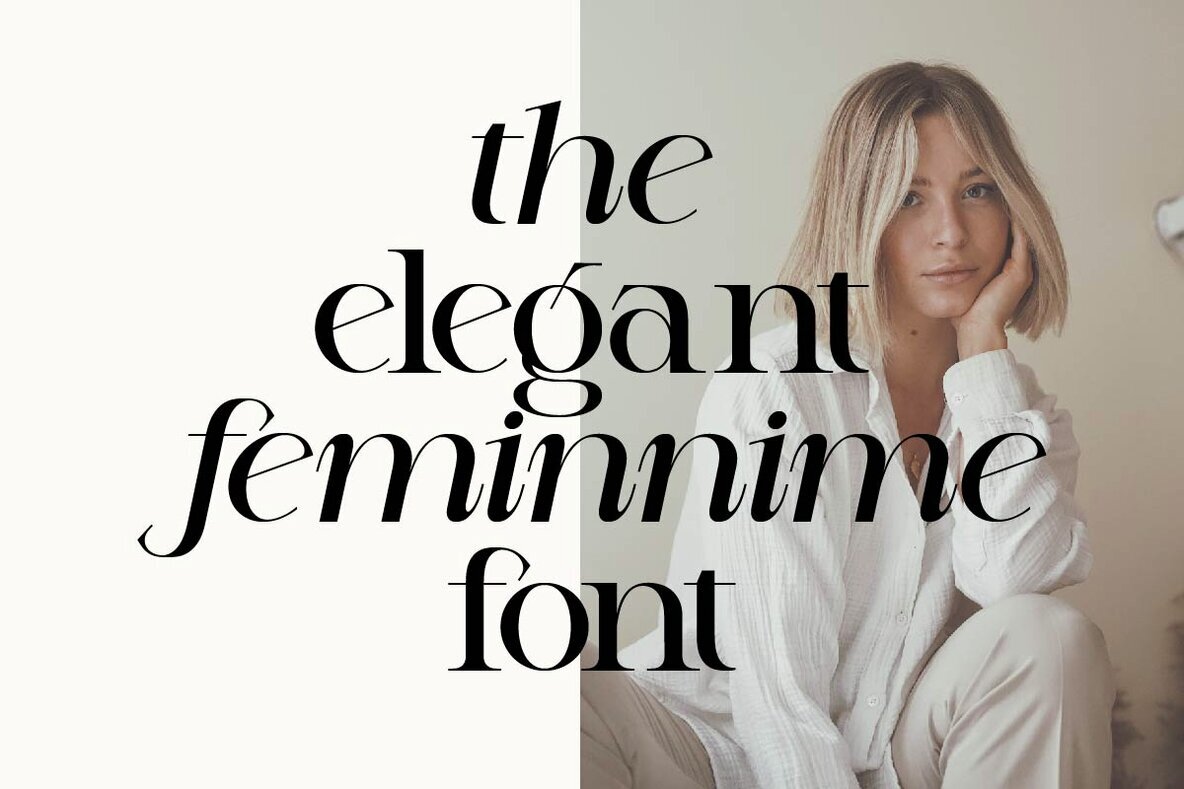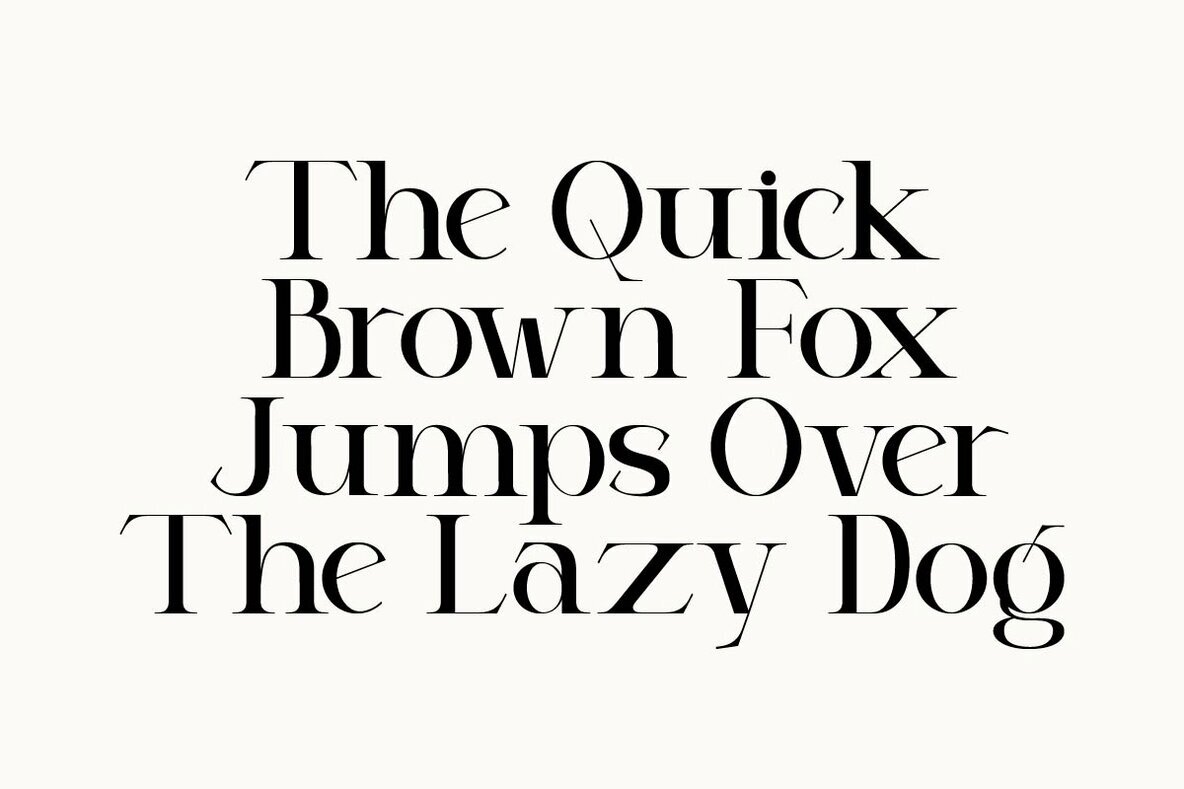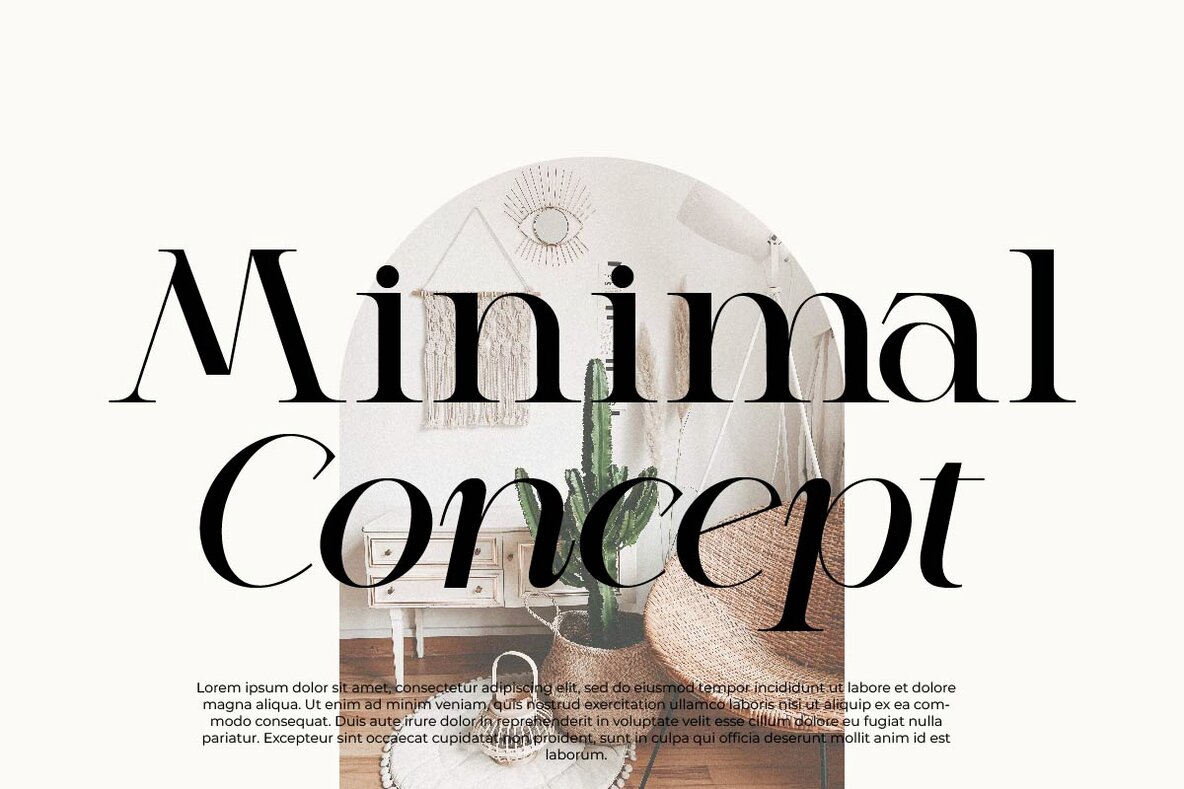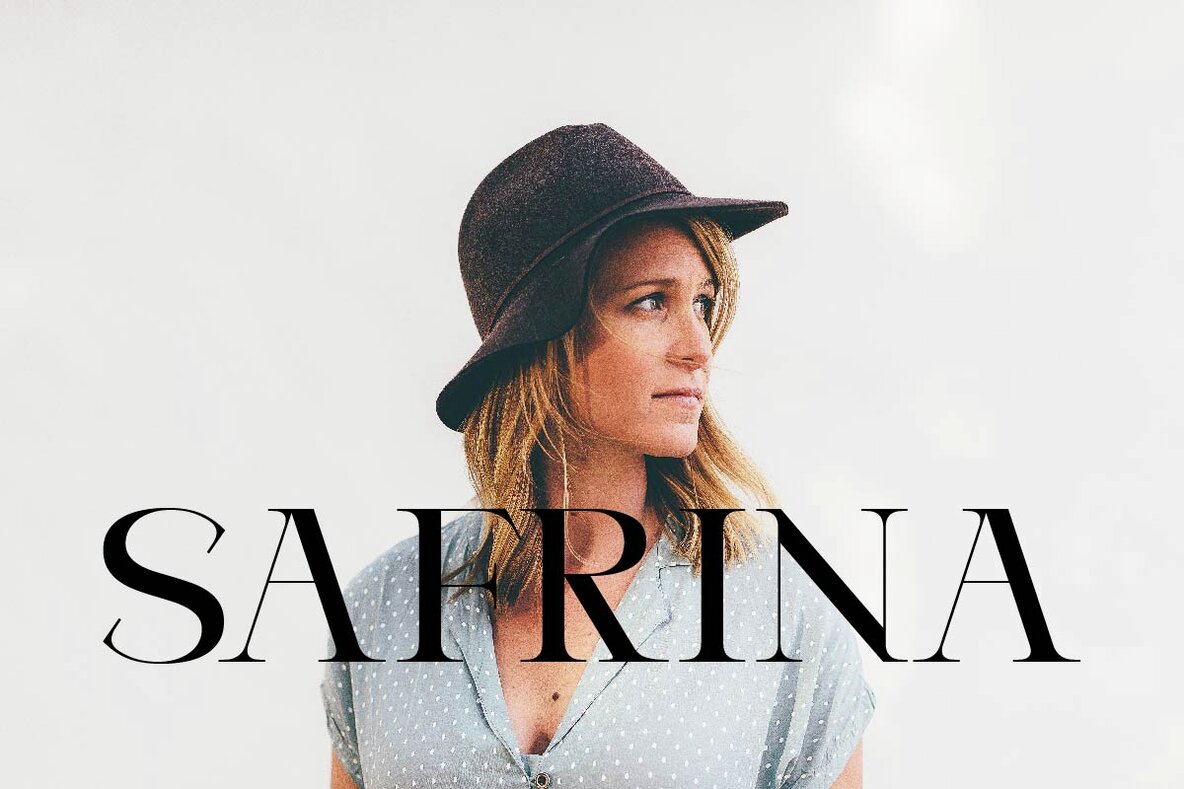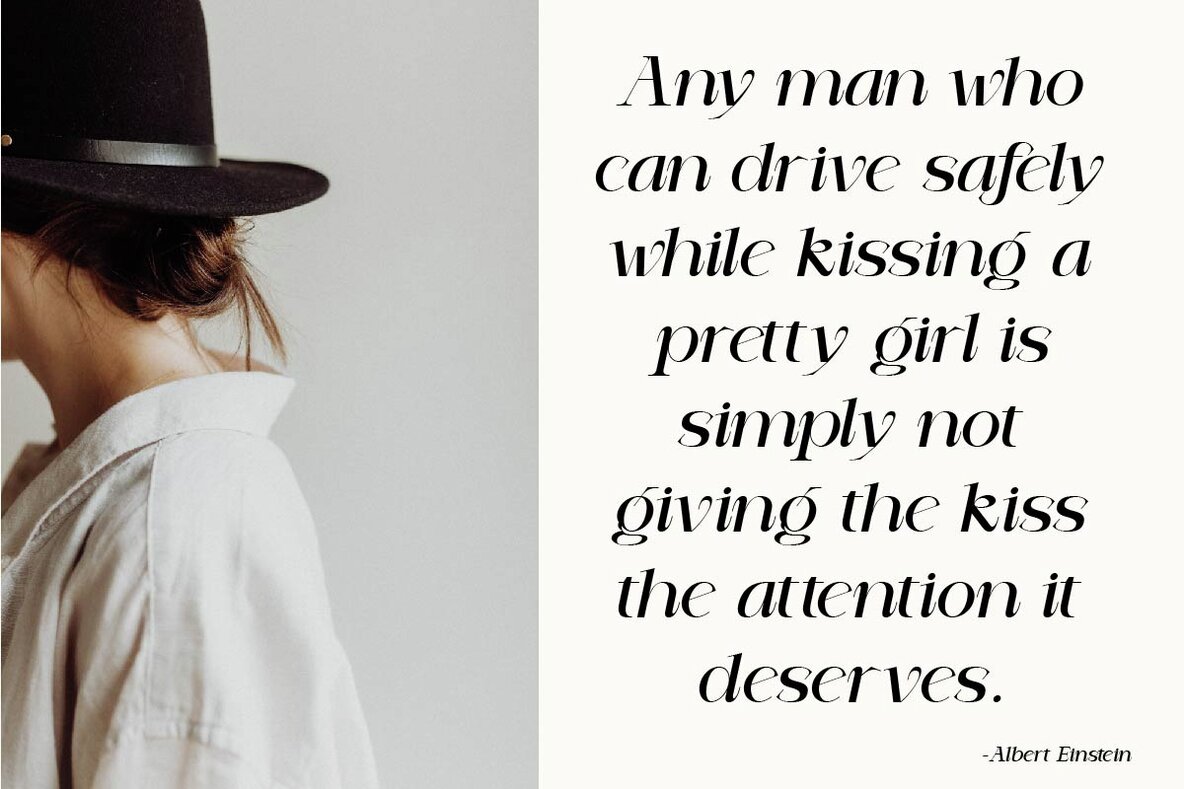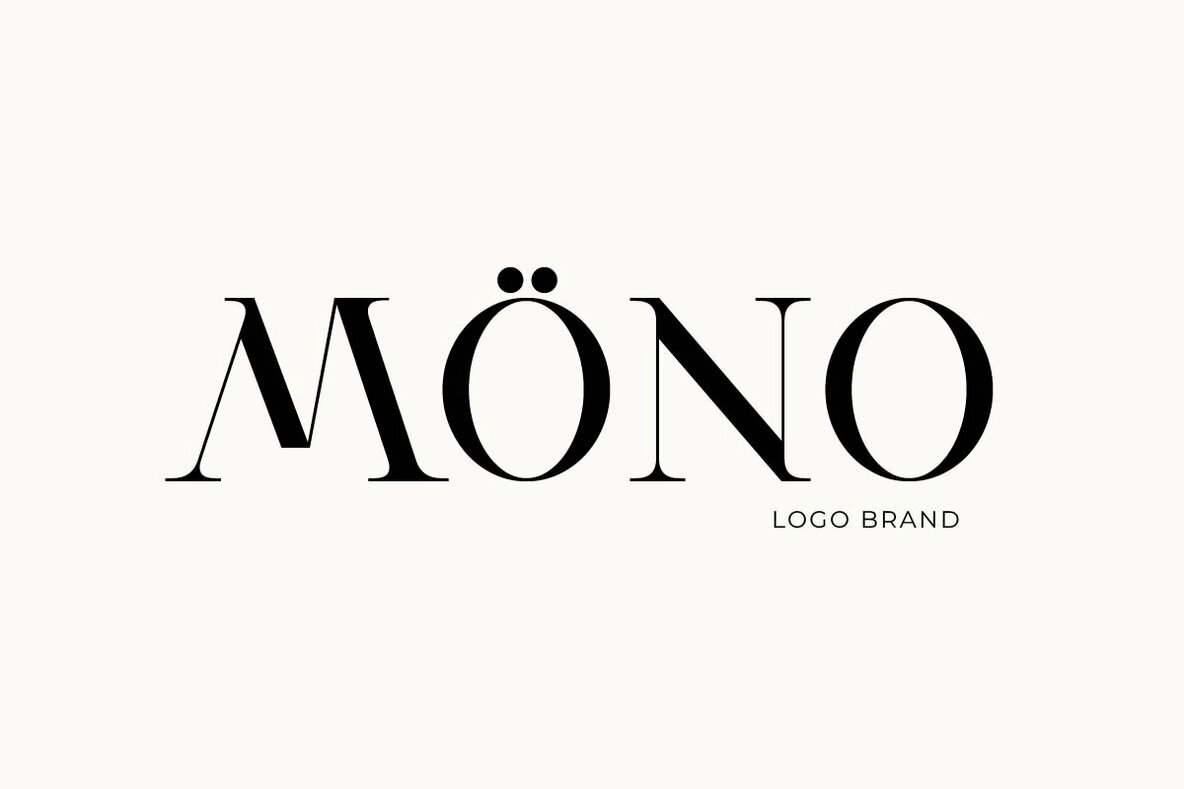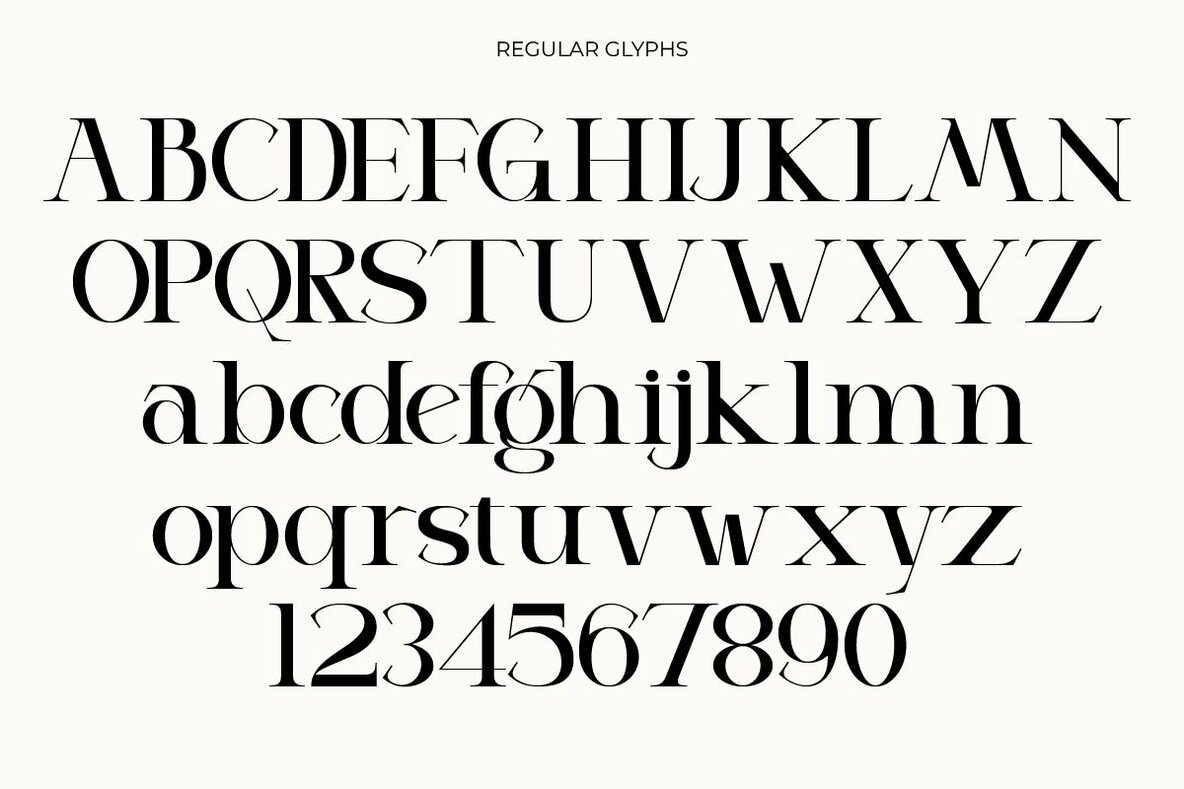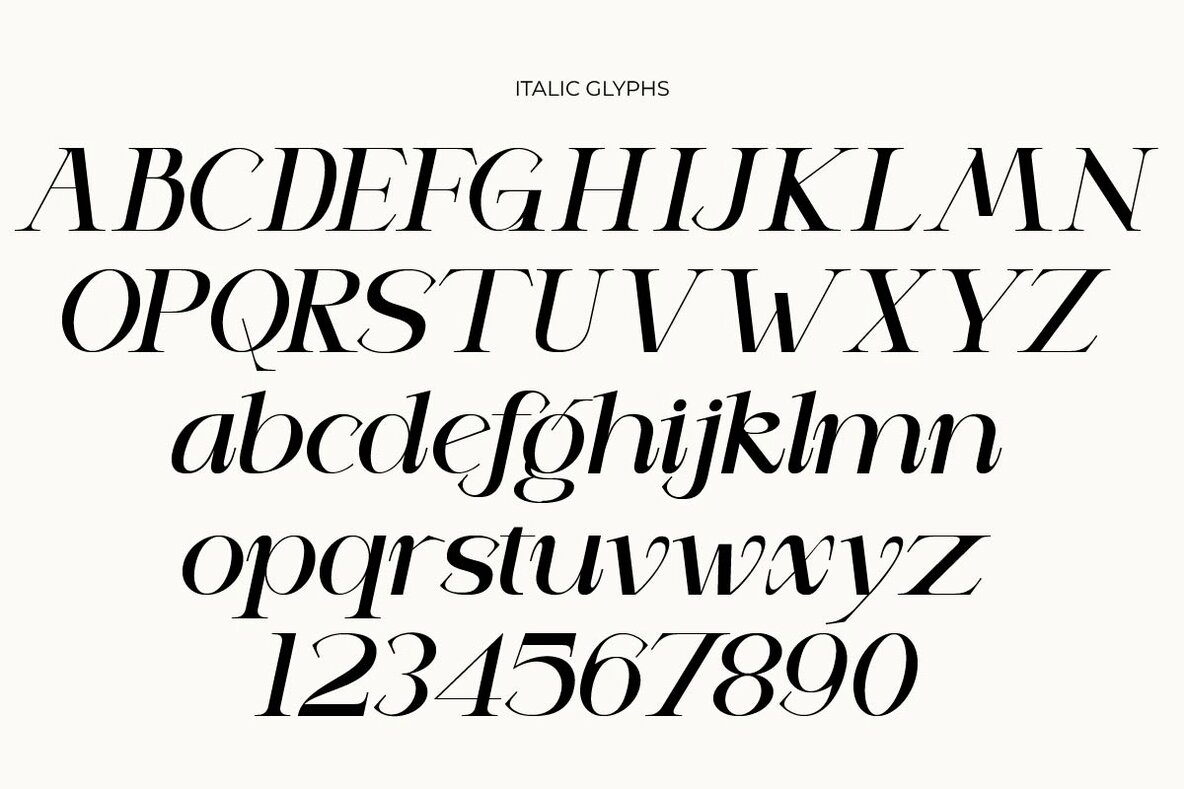
Margeline Font
This font blends the aesthetic of traditional serif typefaces with a modern and bold twist, suitable for high-impact headlines and editorial uses. Its sharp, pronounced serifs and high contrast between thick and thin strokes give it a refined and dynamic appearance, making it an excellent choice for designers seeking to combine elegance with contemporary sophistication.